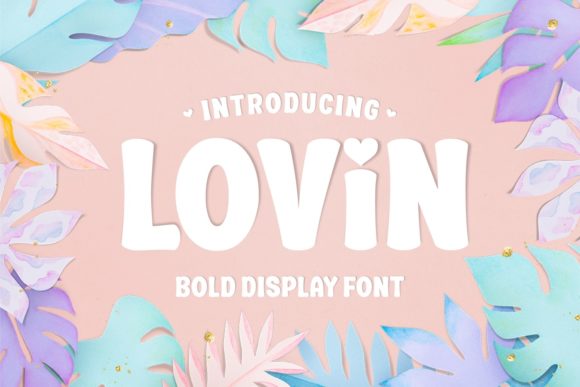
In a digital world bustling with information, capturing attention and conveying a message effectively is paramount. Lovin Font, a creation of Creative Fabrica Fonts, is not just a font; it's a gateway to captivating storytelling. Its clean and casual display style, adorned with inviting round edges, transforms ordinary words into captivating statements that resonate with audiences.
Lovin Font is more than a visual element; it's an emotion, a feeling, a connection. Its soft, approachable curves evoke a sense of warmth and familiarity, inviting readers to delve deeper into your message. Whether crafting captivating display ads, eye-catching headlines, or heartfelt social media posts, Lovin Font amplifies your words, making them dance off the screen and straight into the hearts of your audience.
Step into a world of endless possibilities with Lovin Font. Its versatility knows no bounds, adapting seamlessly to a myriad of creative endeavors. Unleash your imagination and craft stunning logos that exude professionalism, design brochures that leave a lasting impression, or create social media graphics that spark engagement. With Lovin Font as your creative companion, your designs will radiate charm and sophistication, leaving an indelible mark on your audience's minds.
Beyond its aesthetic appeal, Lovin Font is a practical choice for businesses seeking to expand their reach. Its compatibility with cutting machines like Cricut and Silhouette makes it a versatile asset for crafting personalized products, adding a touch of exclusivity to your offerings. Create unique decals, custom t-shirts, or personalized gifts that showcase your brand's personality and leave customers feeling valued and connected.
Embrace Lovin Font and embark on a creative journey where your message takes center stage. Let its inviting curves and captivating style elevate your designs, transforming them into powerful expressions of your brand's essence. Stand out from the crowd, resonate with your audience, and create a lasting impression with Lovin Font, the font that speaks volumes without uttering a single word.